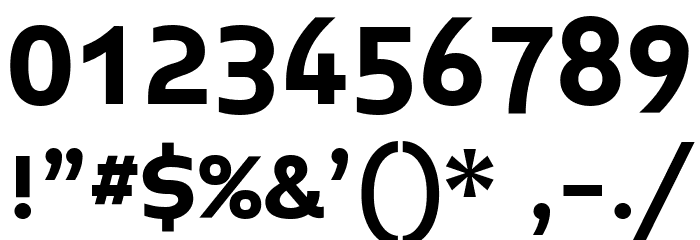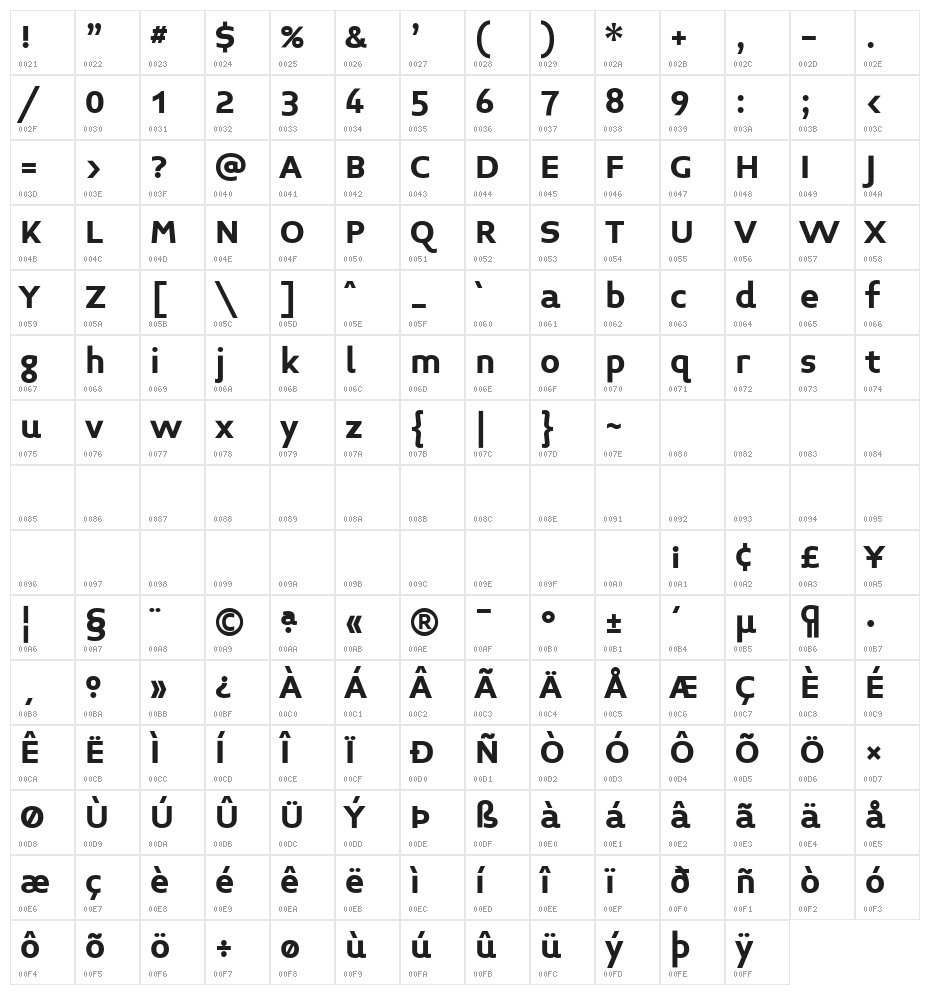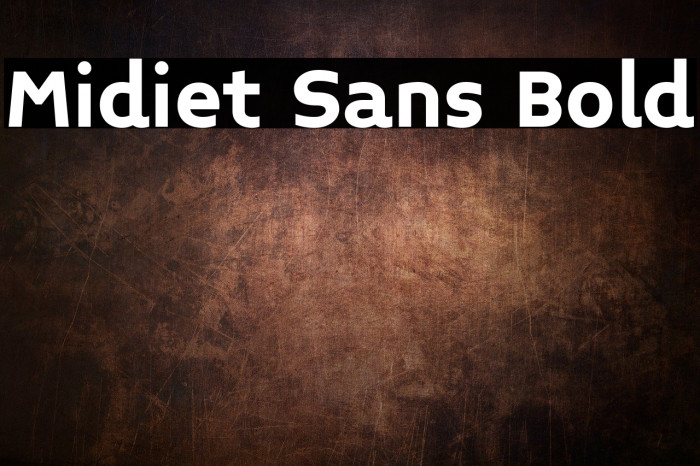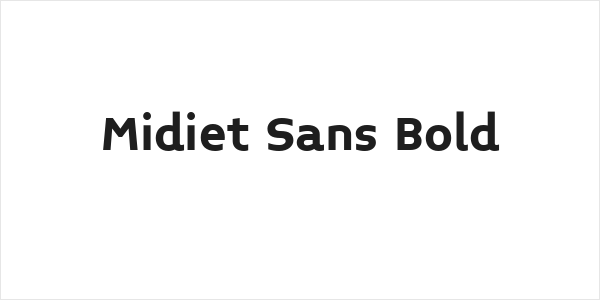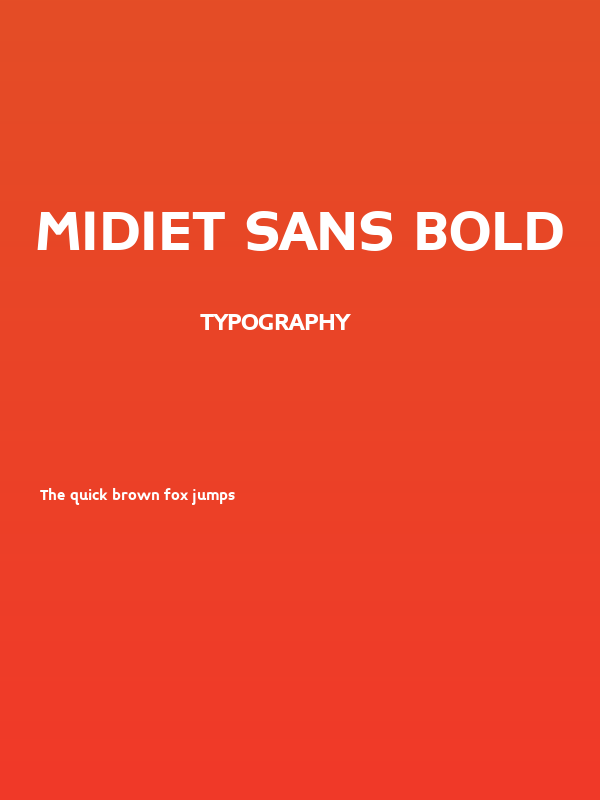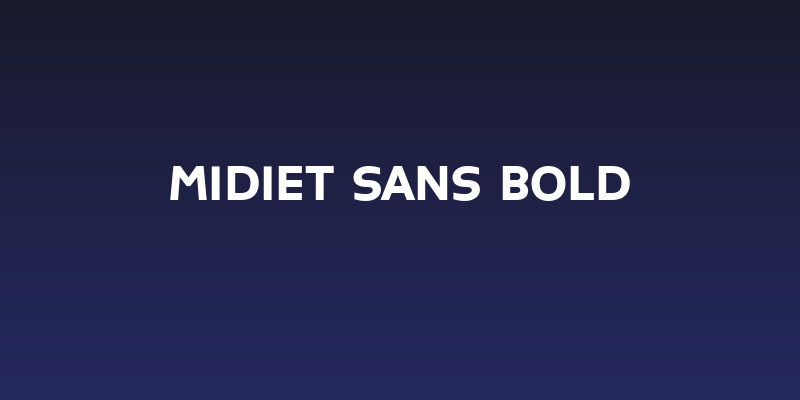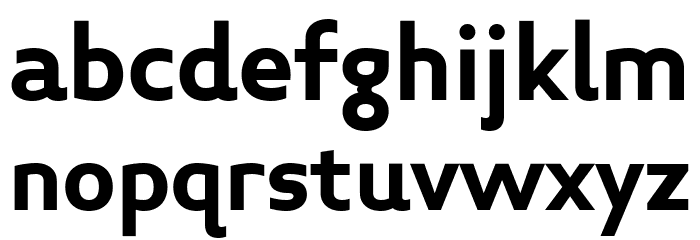
Midiet Sans Bold Font
Midiet Sans Bold Description
This font exhibits a clean and modern sans-serif style with bold weight, making it highly legible and impactful. The characters are well-proportioned with a consistent stroke width, contributing to its uniform appearance. The uppercase letters are slightly taller than the lowercase, providing a strong visual hierarchy. The numerals are clear and distinct, ensuring readability in various contexts. The special characters are designed to complement the overall style, maintaining the font's cohesive look. Its simplicity and clarity make it versatile for a range of applications.
| Use Case | Headlines, Logos, Digital Interfaces |
| Proposed Projects | Ideal for branding, advertising, headlines, and digital interfaces where clarity and impact are essential. |